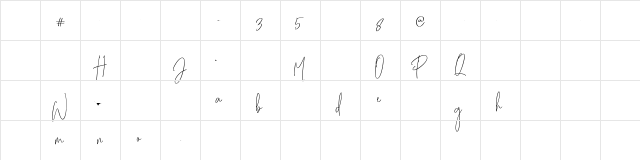
Besties Matthew Regular
| Foundry | Creatype Studio Co. |
| Designer | Rian Rahardi |
Design Context for Besties Matthew Typeface
Besties Matthew is a composed and adaptable typeface that performs quietly and consistently across a wide range of design contexts.